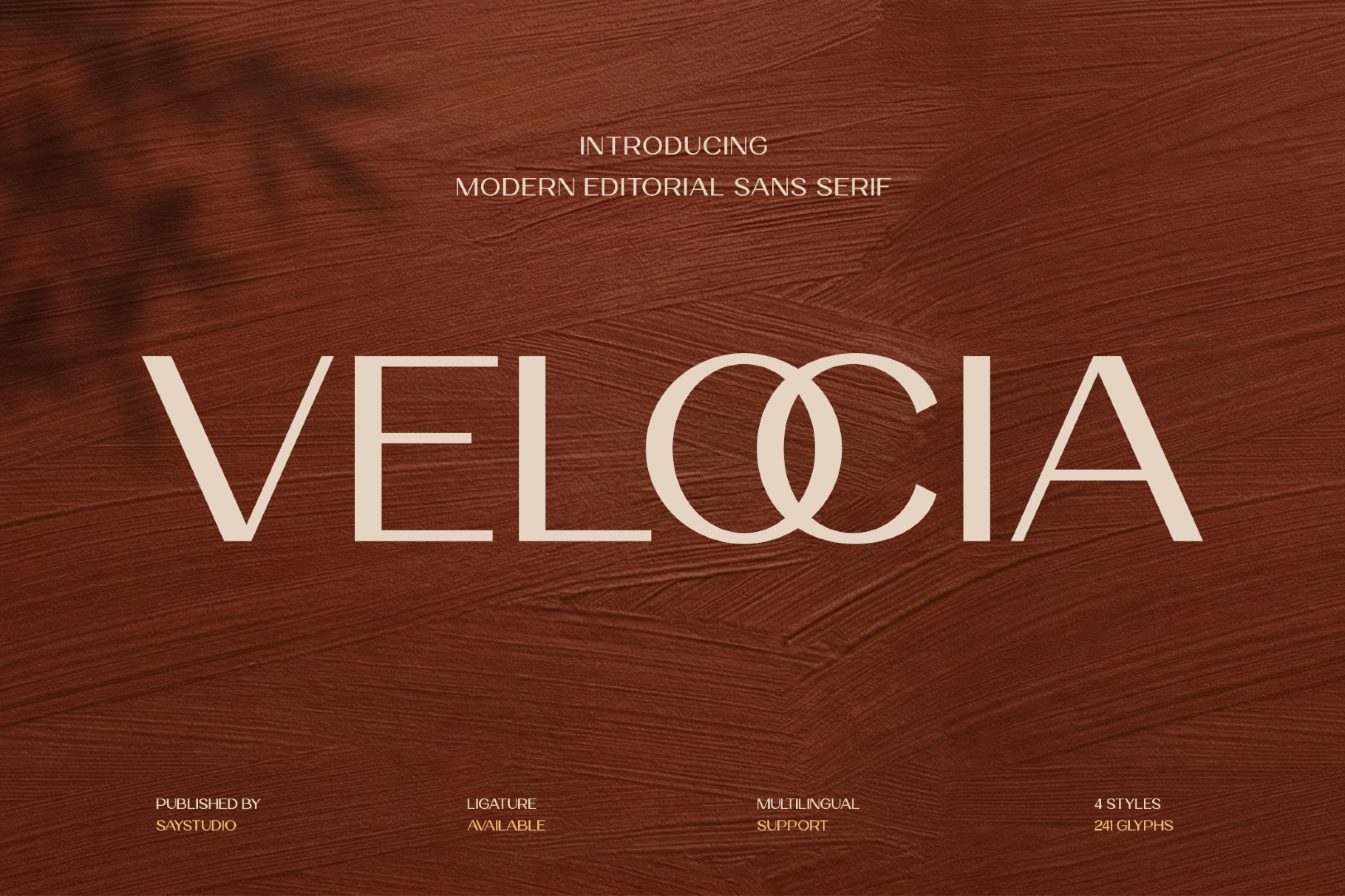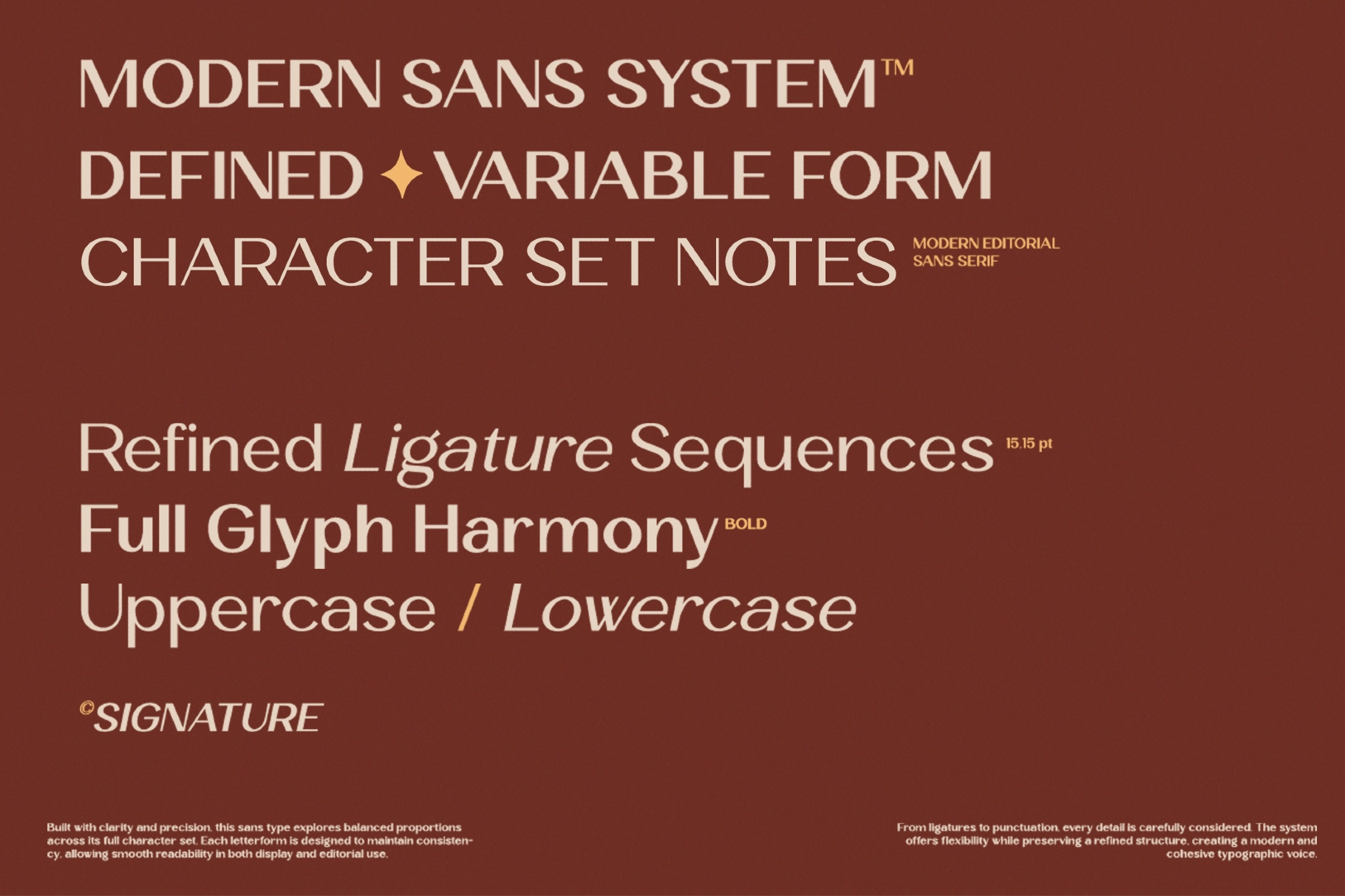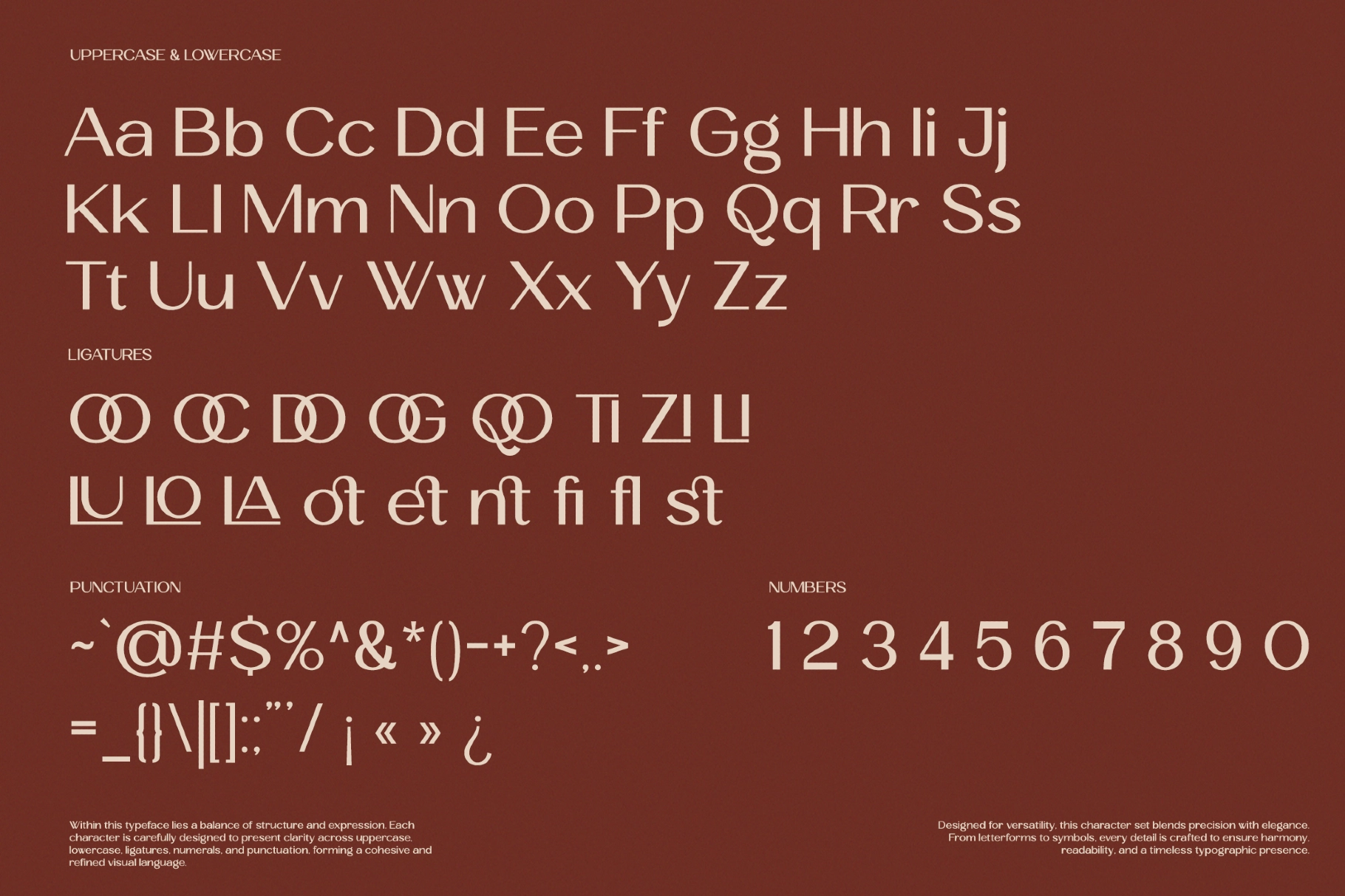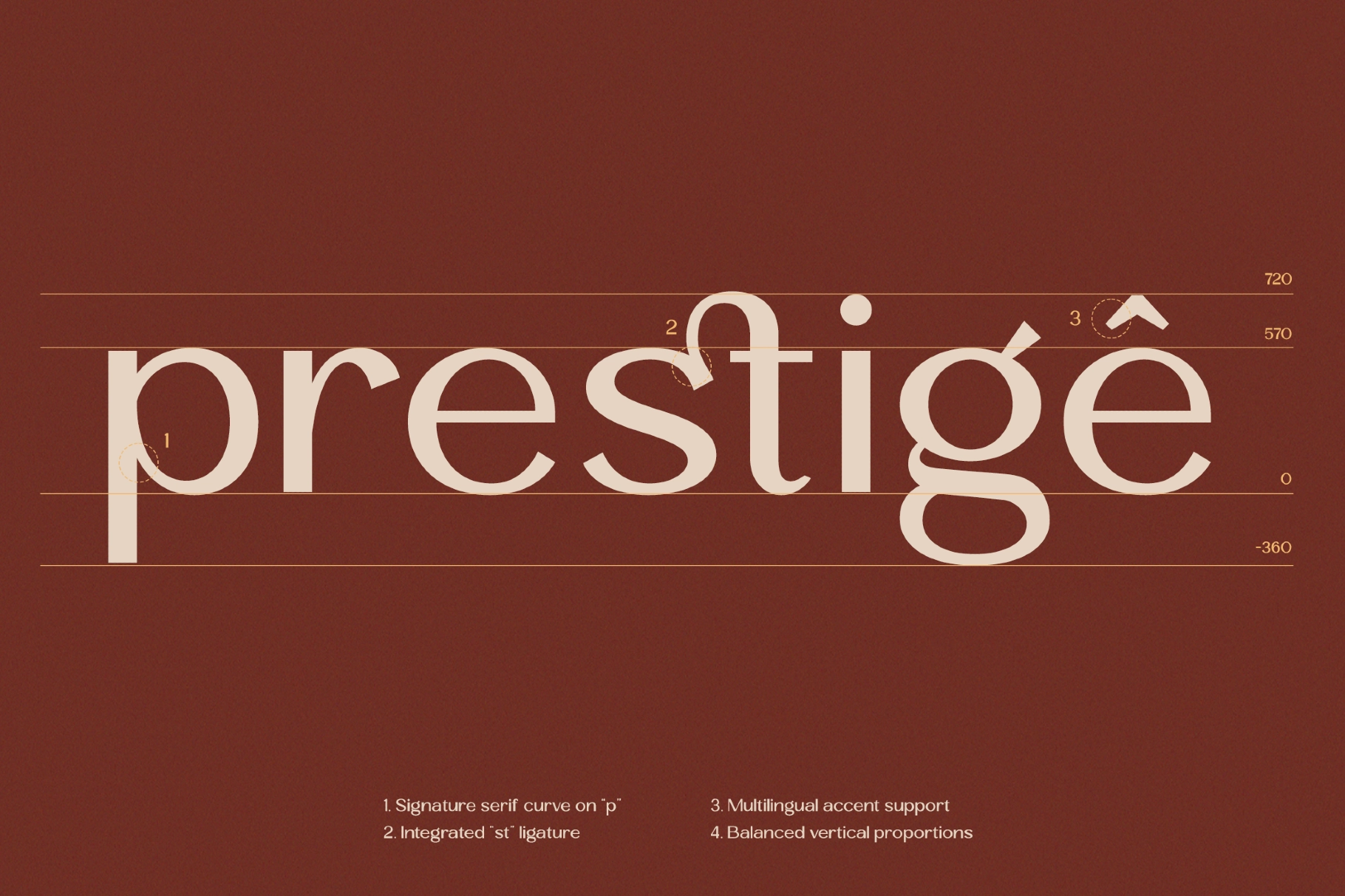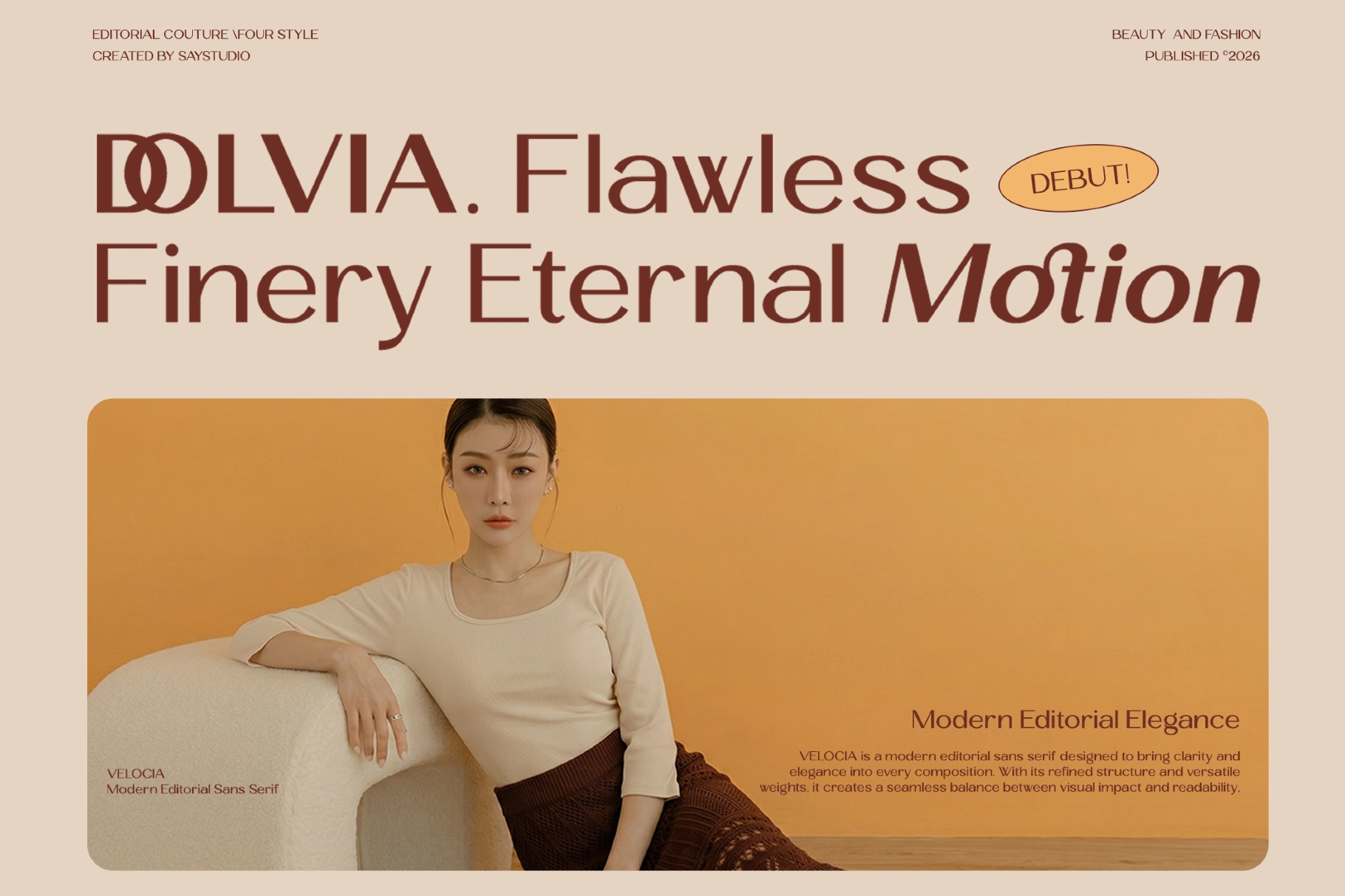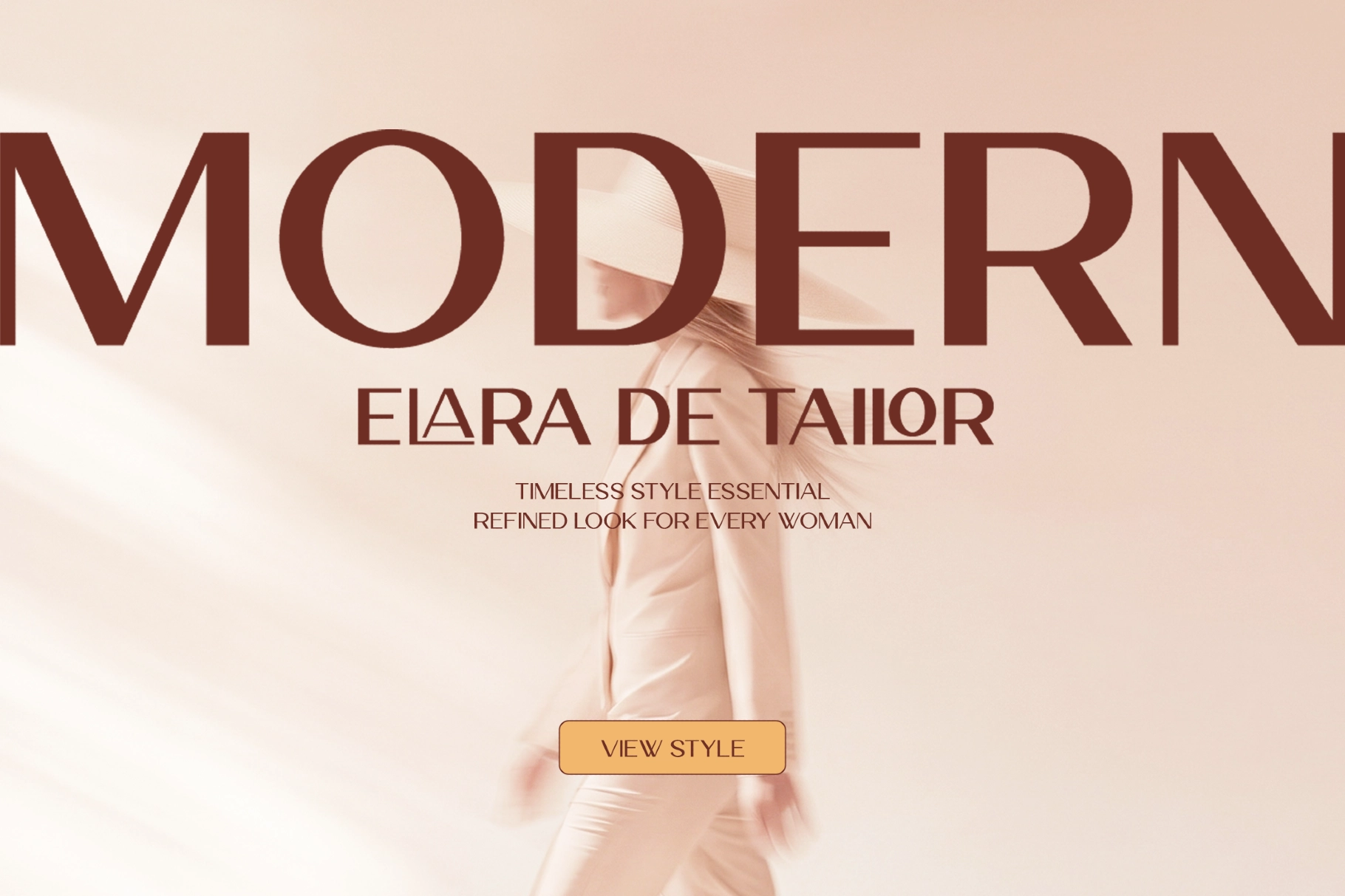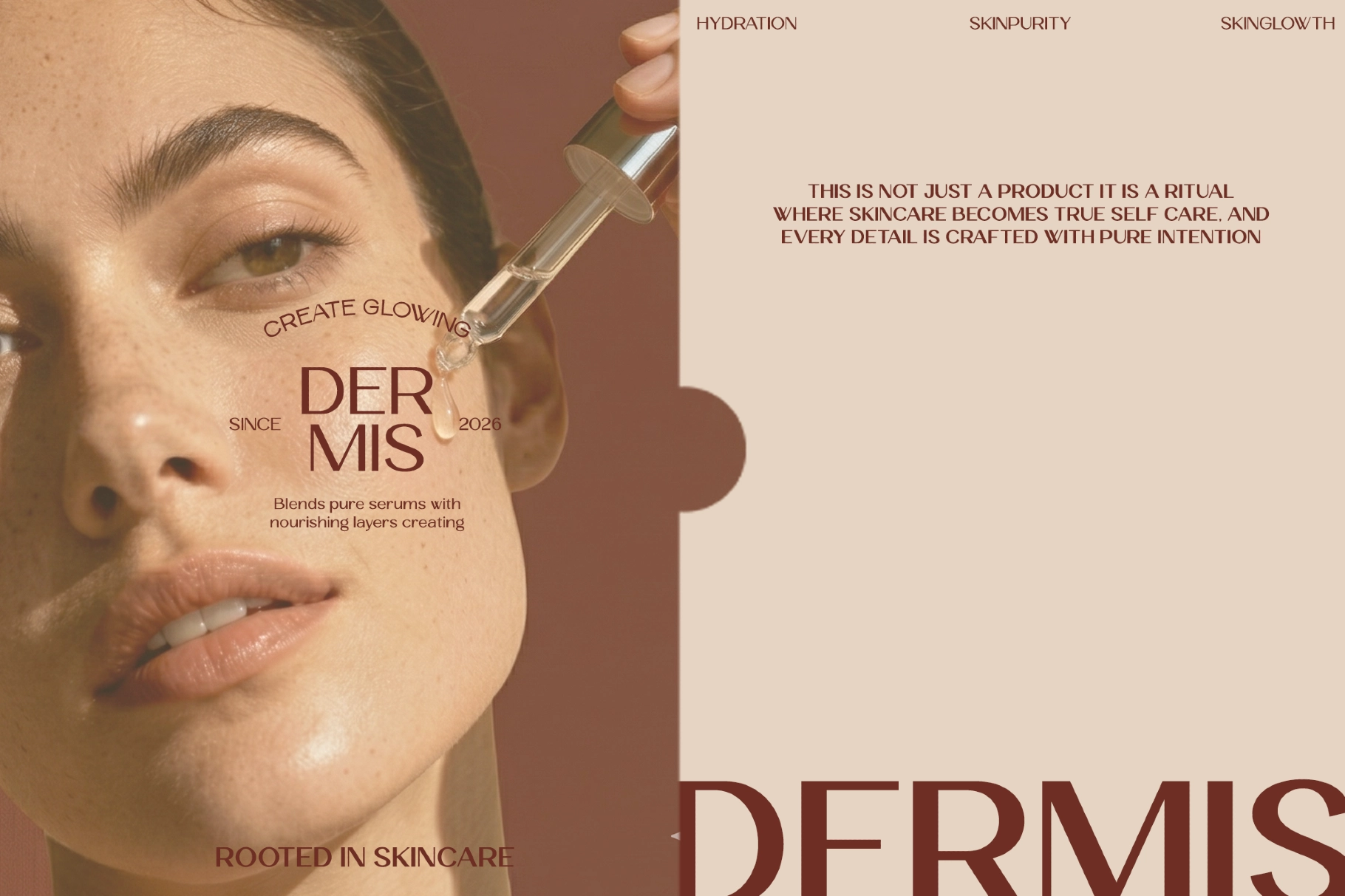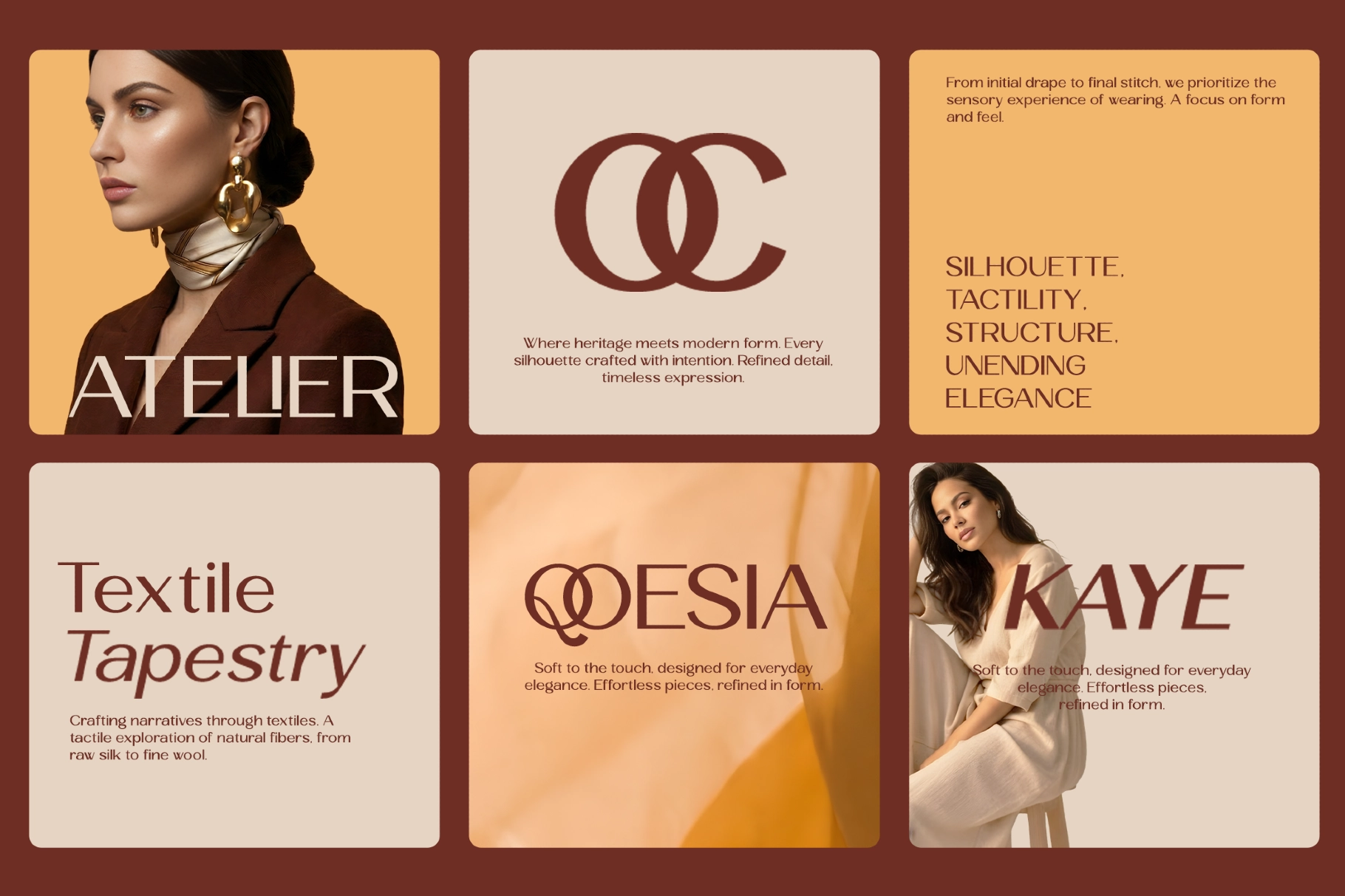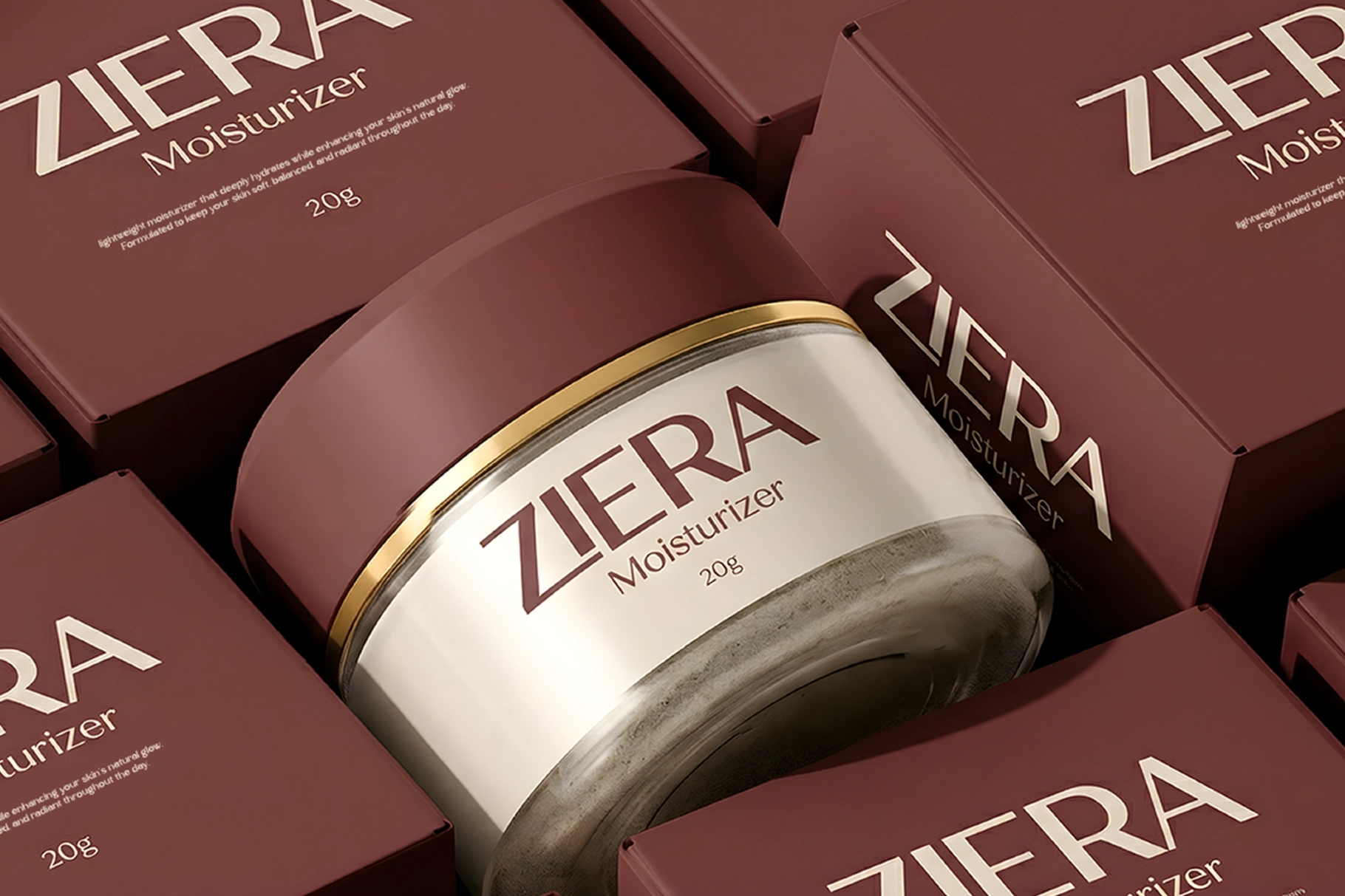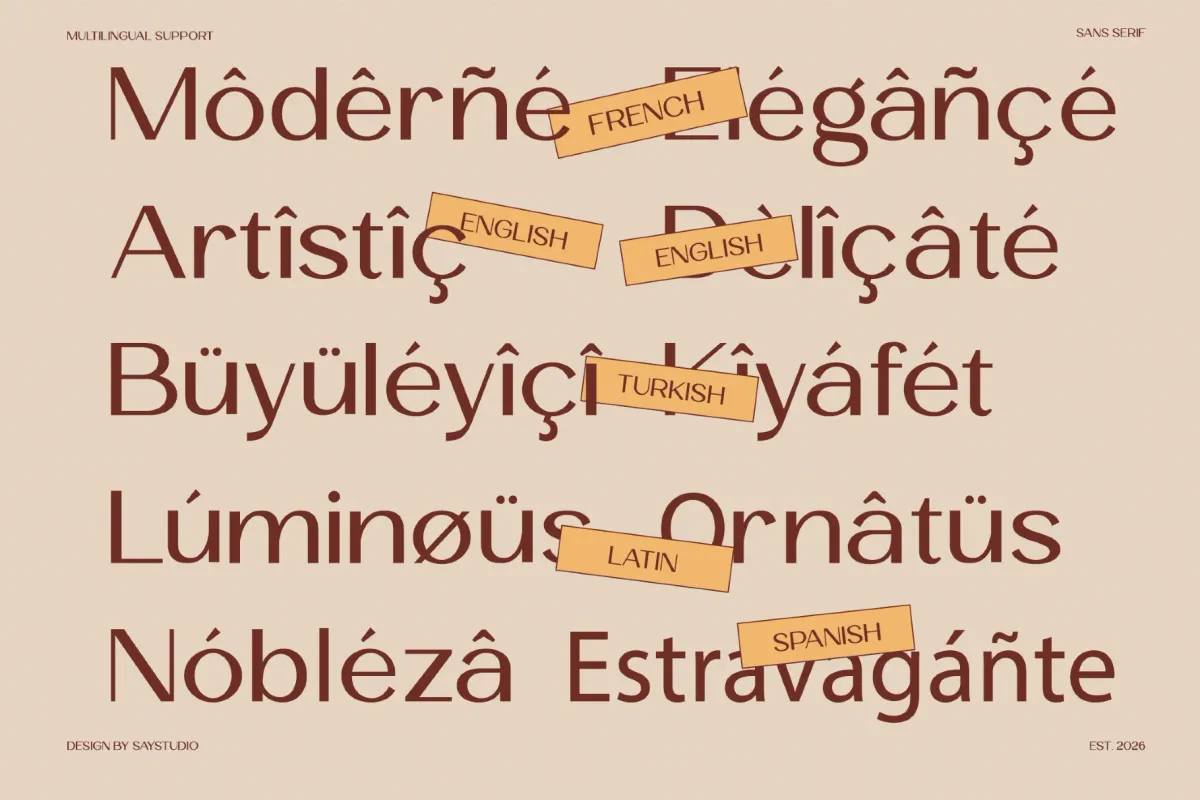
Velocia - Modern Editorial Sans Font
Velocia, Modern Editorial Sans Font pairs editorial poise with the sleek restraint of Art Deco publishing and late-century fashion typography, its long curves, crisp terminals, and sculpted ligatures giving the sans form a polished, gallery-ready finish. It suits magazine mastheads, luxury branding, cosmetic packaging, book covers, campaign visuals, boutique logos, and refined social media layouts.
• Regular, Bold & Italic styles
• Stylish ligatures
• Numerals & punctuation